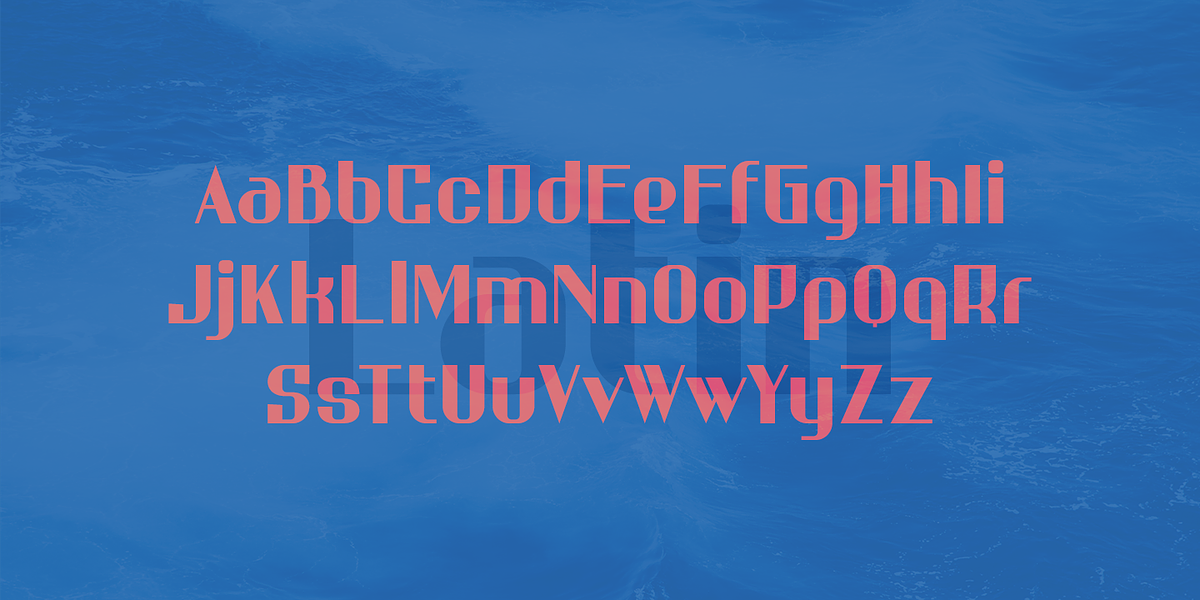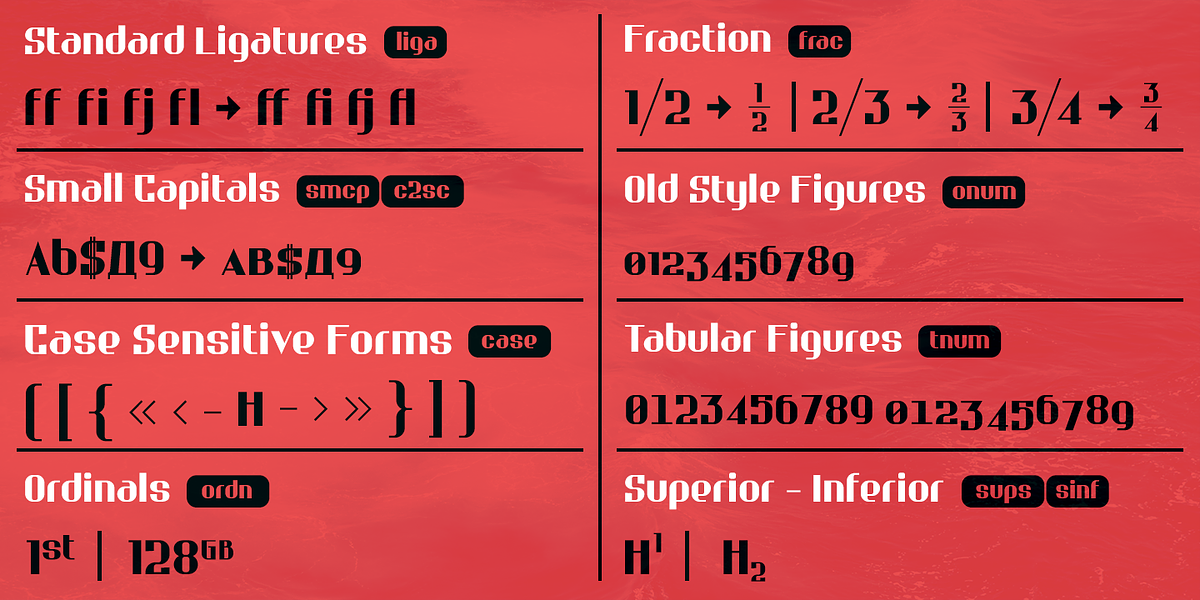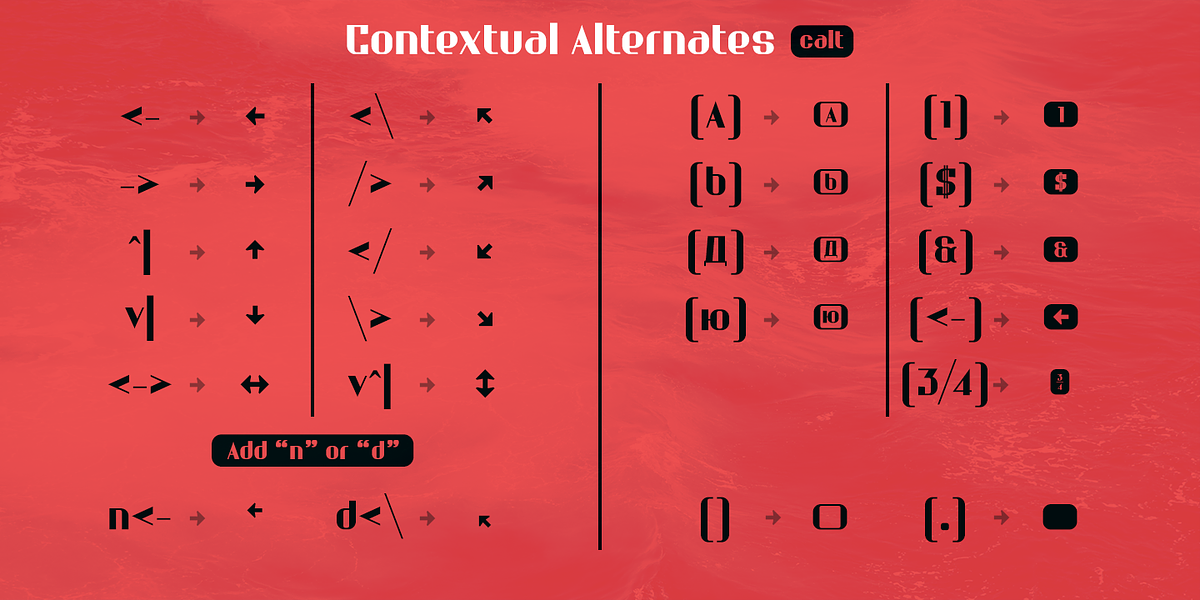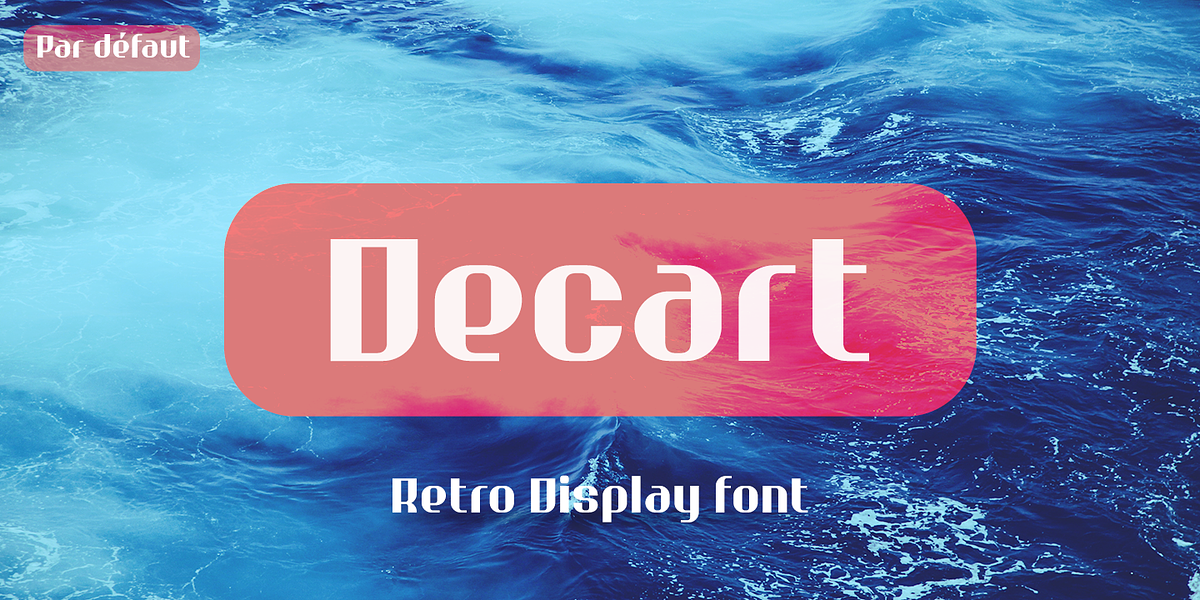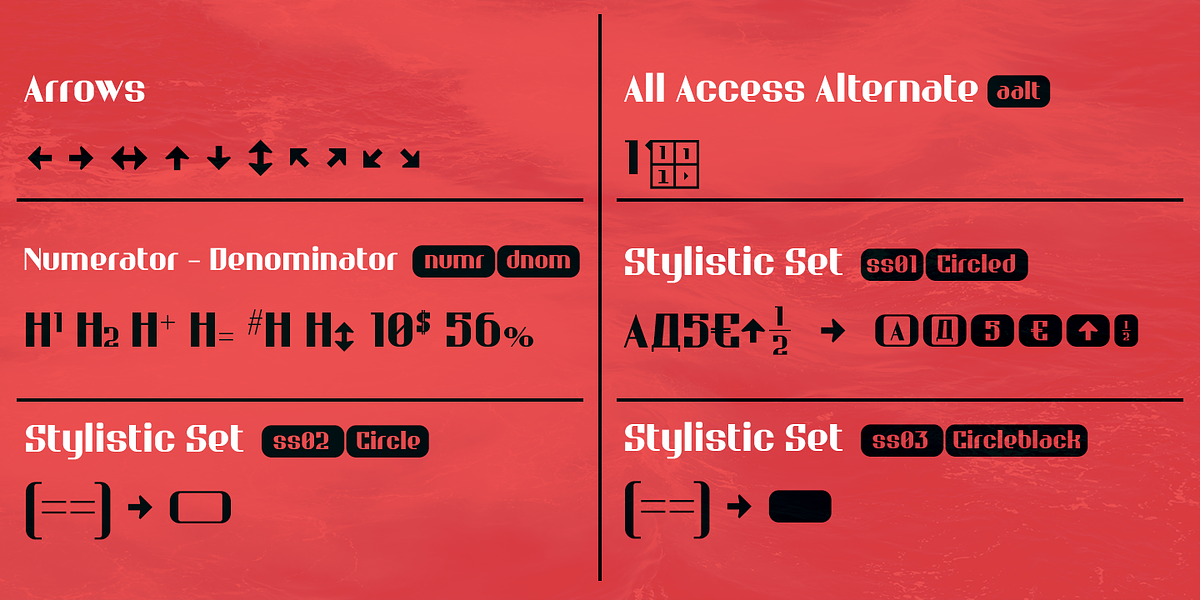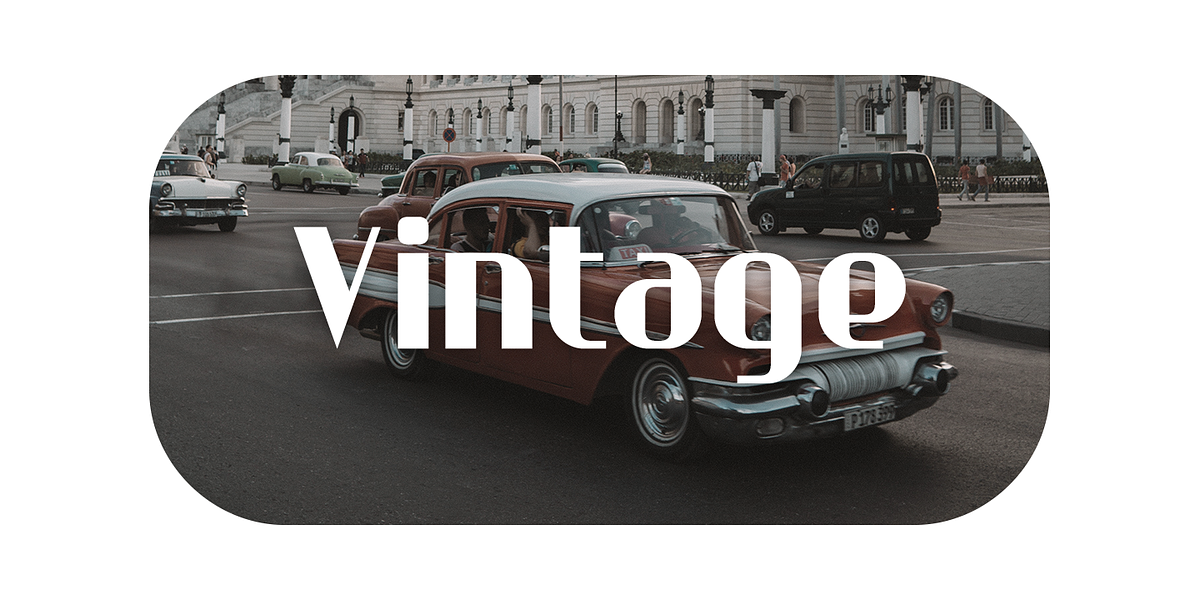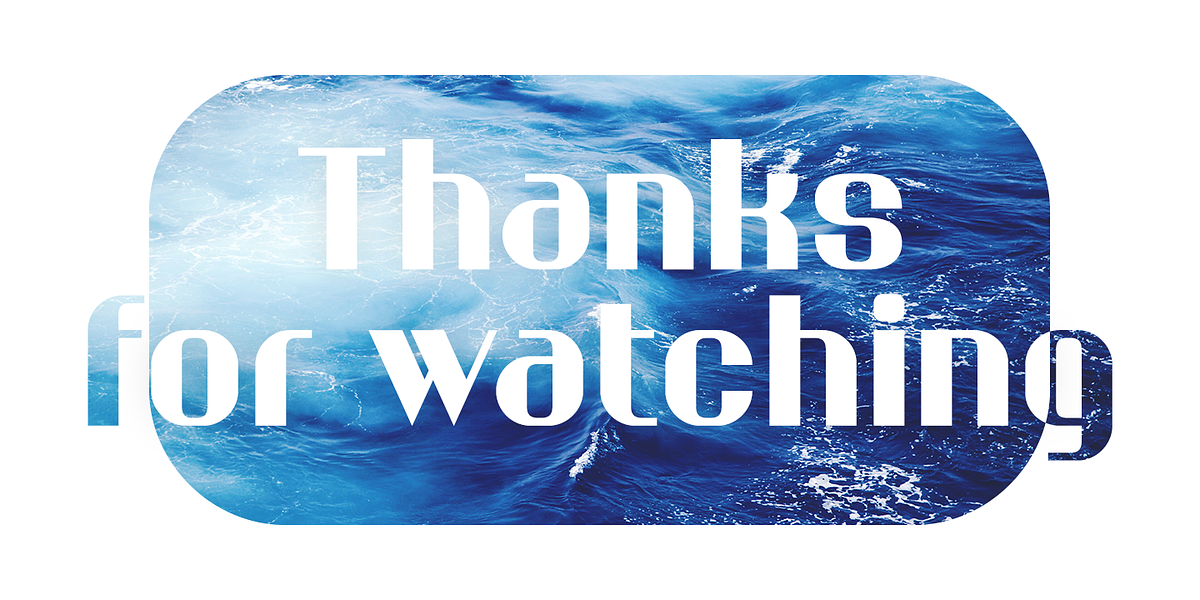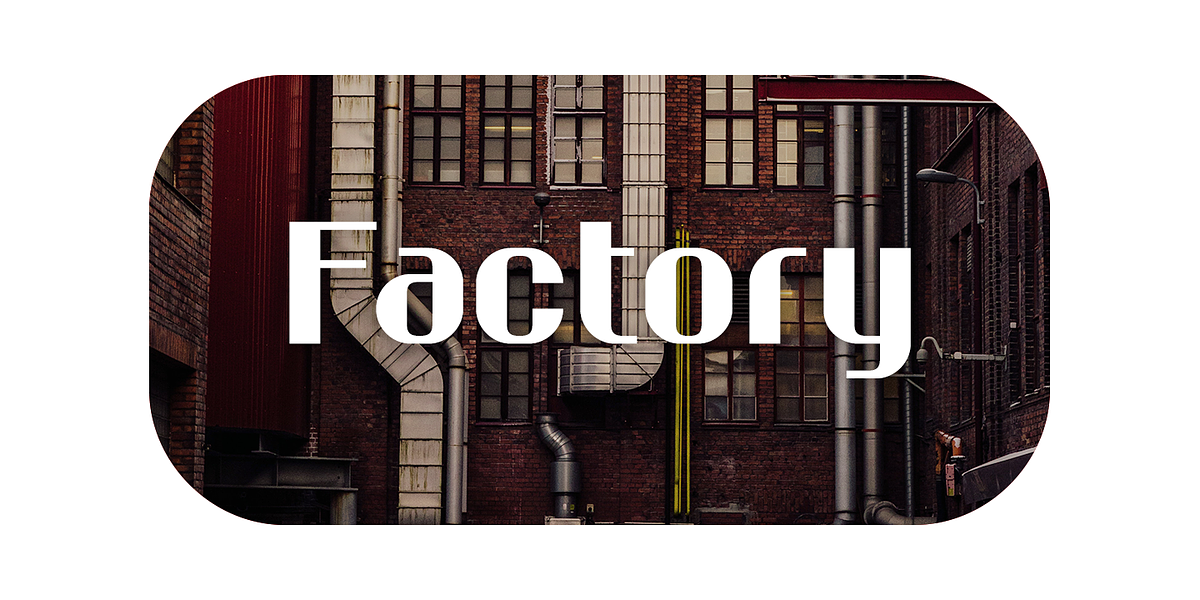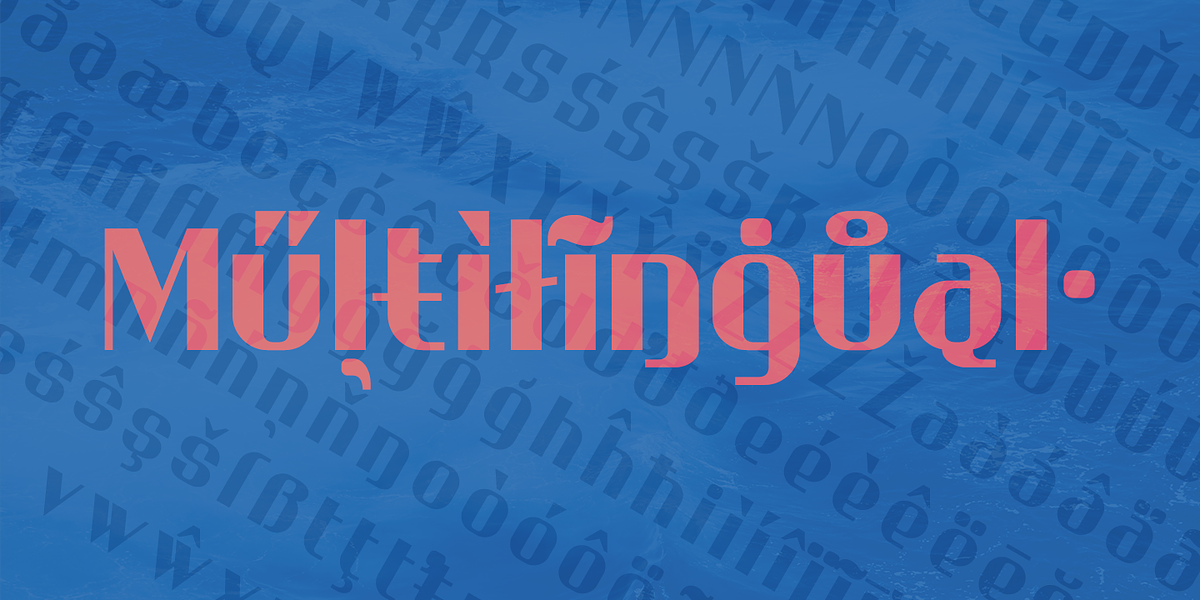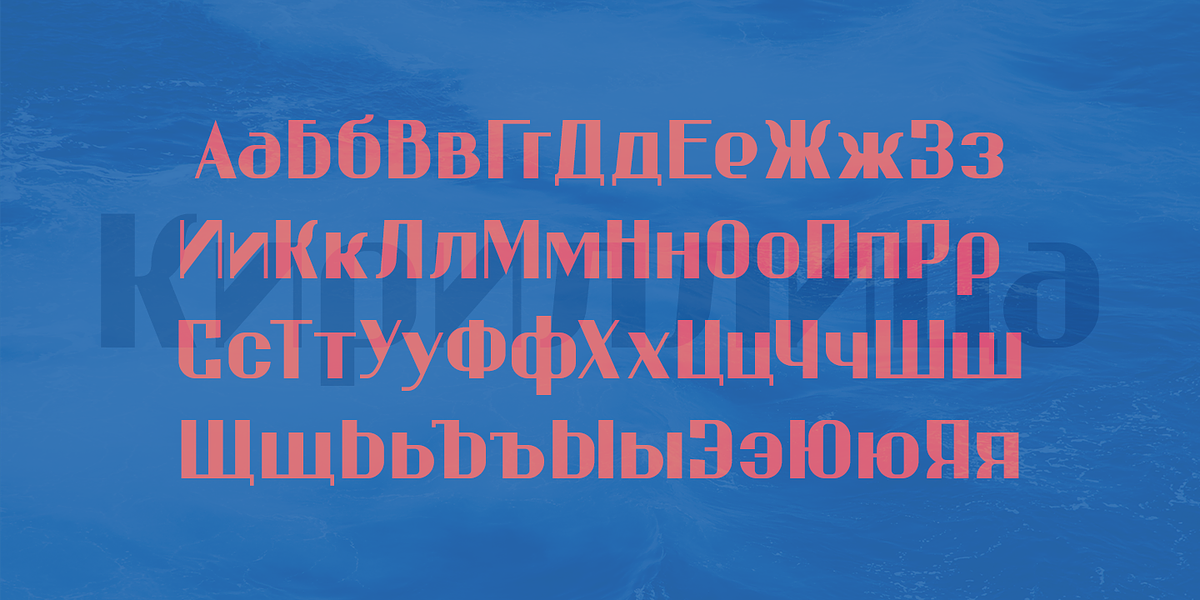
Decart
Decart is a striking geometric display font that draws inspiration from the elegant Art Deco style of the early 20th century. Its retro aesthetic and bold forms make it ideal for headlines, branding, posters, and signage. With over 1100 characters covering Latin and Cyrillic alphabets, Decart offers extensive multilingual support. The font's inclusion of 15 OpenType features like stylistic alternates, fractions, and kerning allows for precise typographic control and customization.